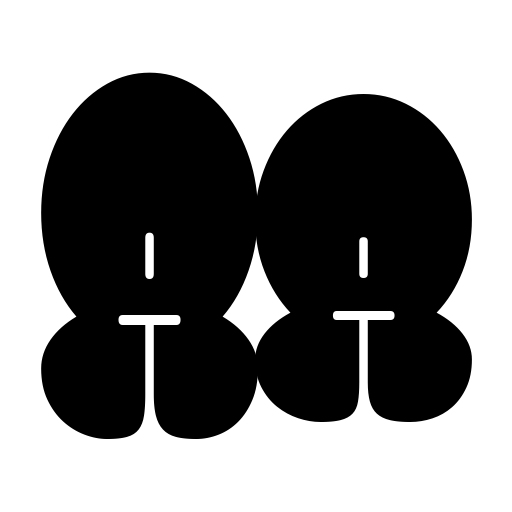
Bomber Throw is a bold, heavy-weight display font with a playful and rounded design that captures attention with its dense, bubble-like letterforms. Its thick, uniform strokes and soft curves give it a fun, retro vibe perfect for vibrant headlines, logos, or packaging that seek an energetic and eye-catching style. This font excels in creative and informal contexts where a strong, friendly personality is desired.
Bomber Throw Font
About Bomber Throw Font